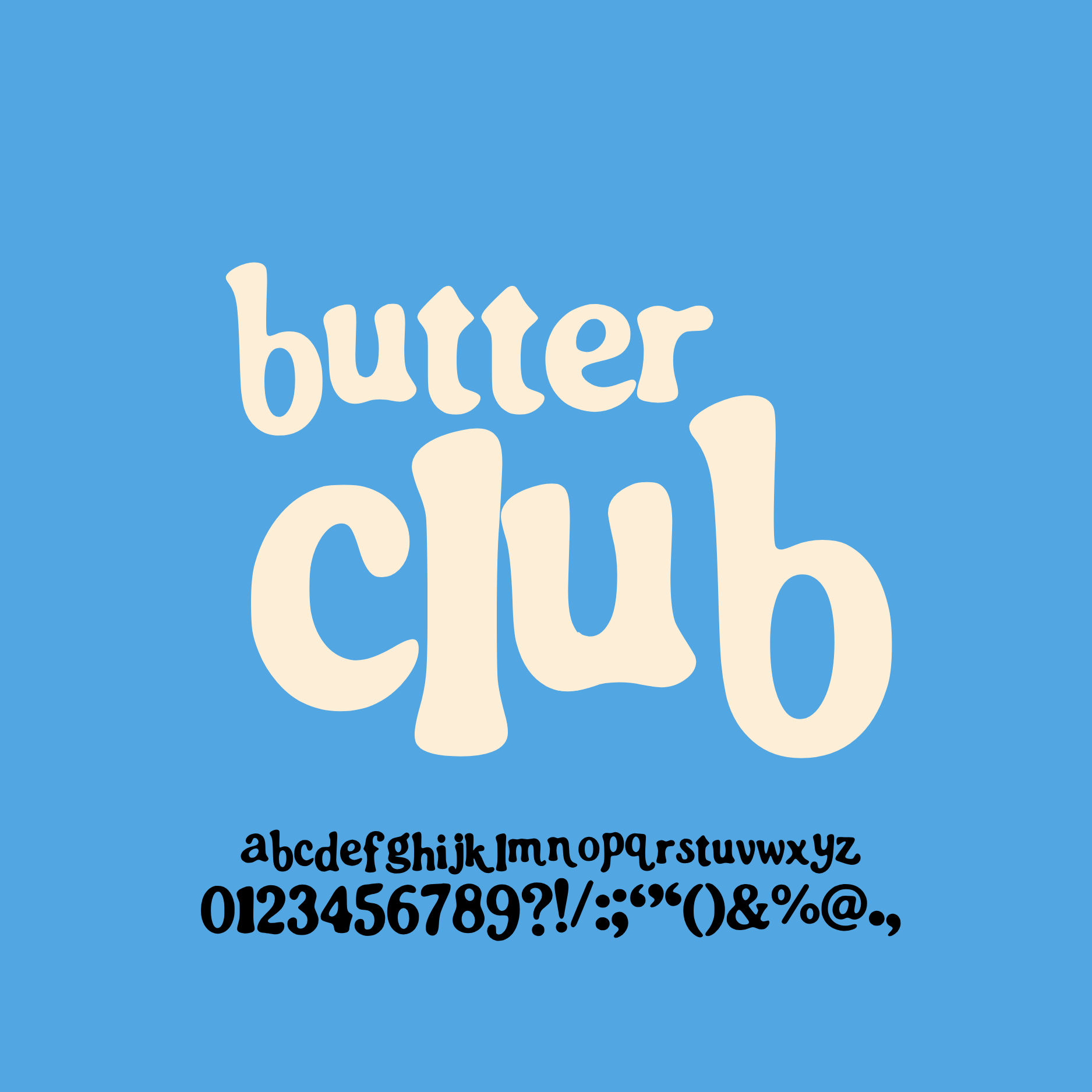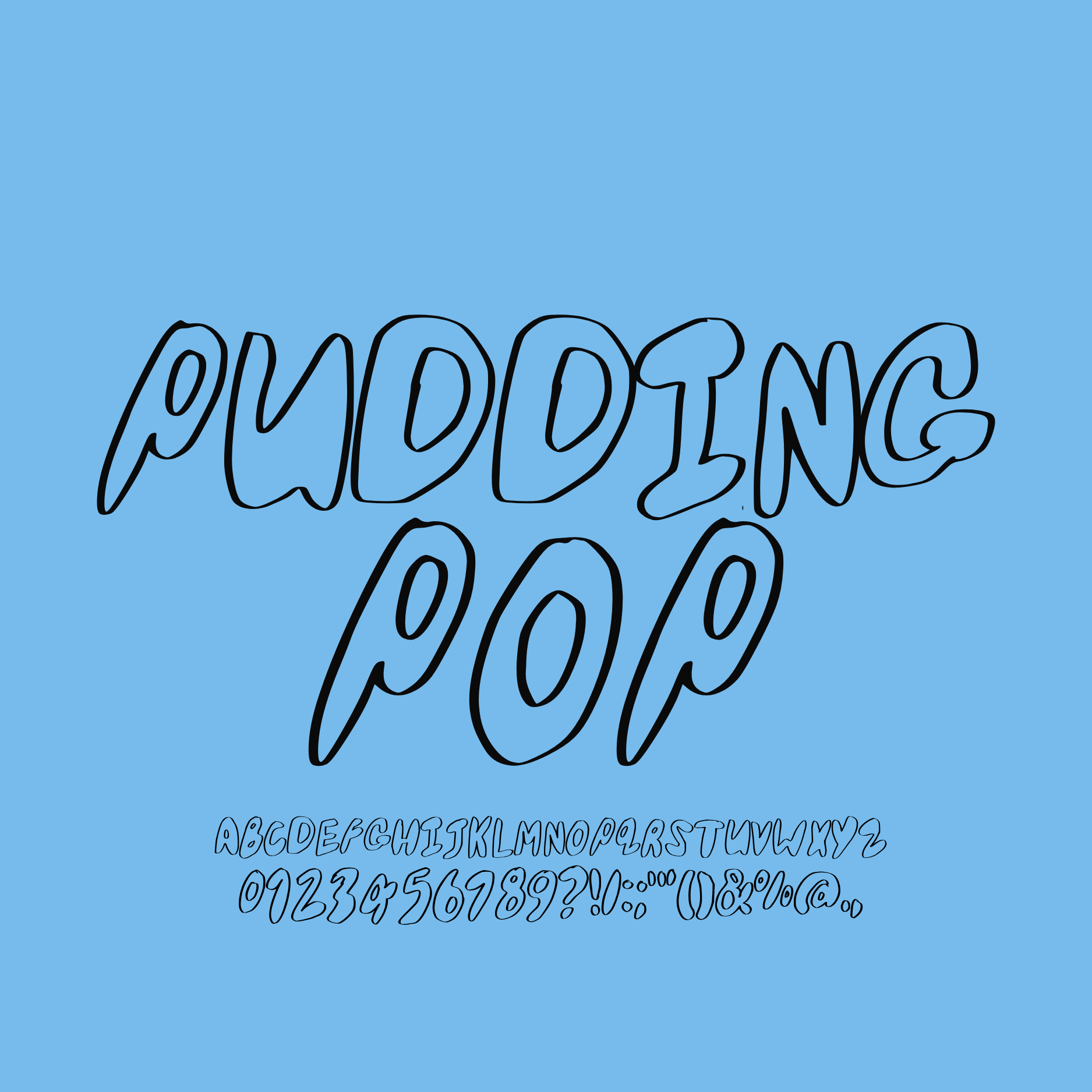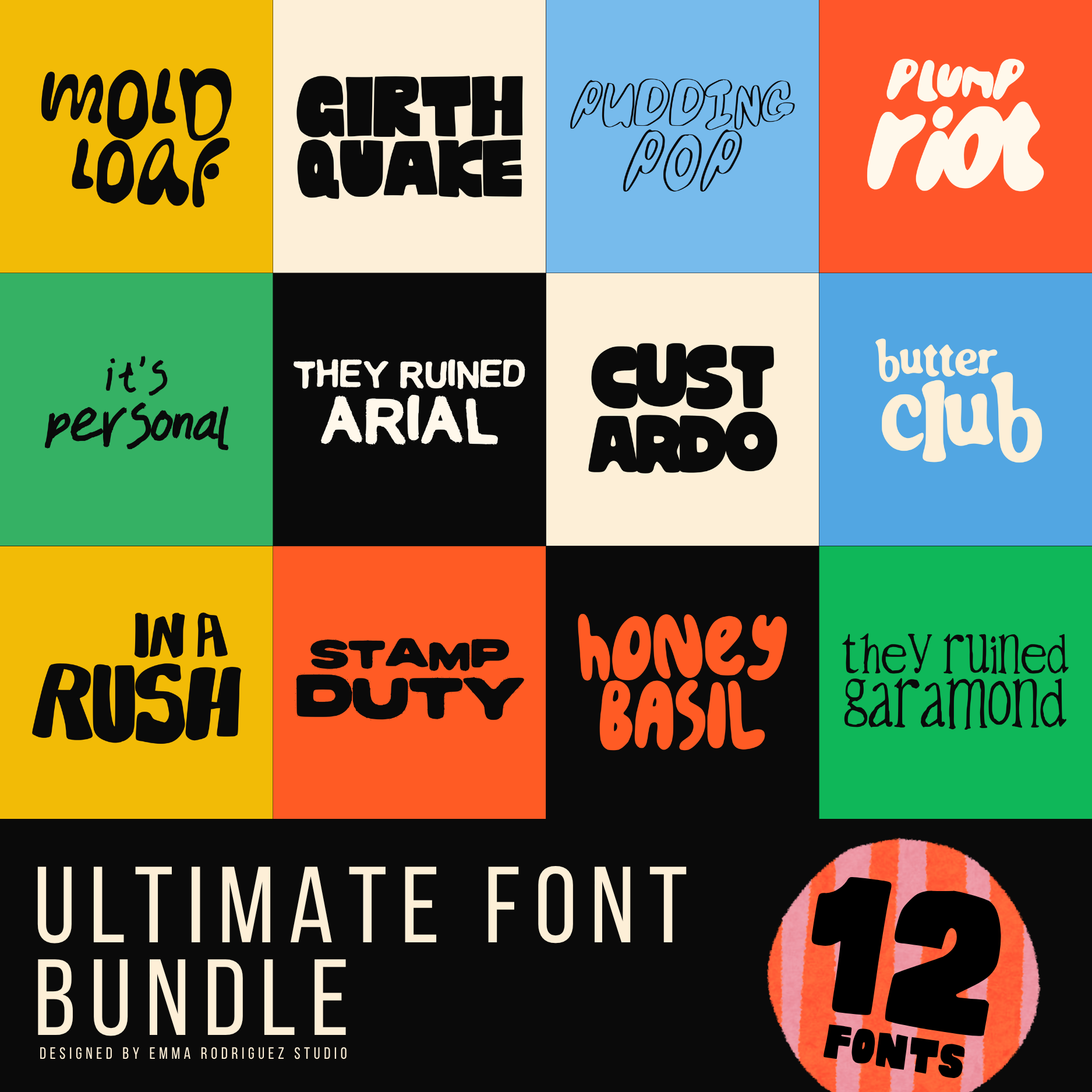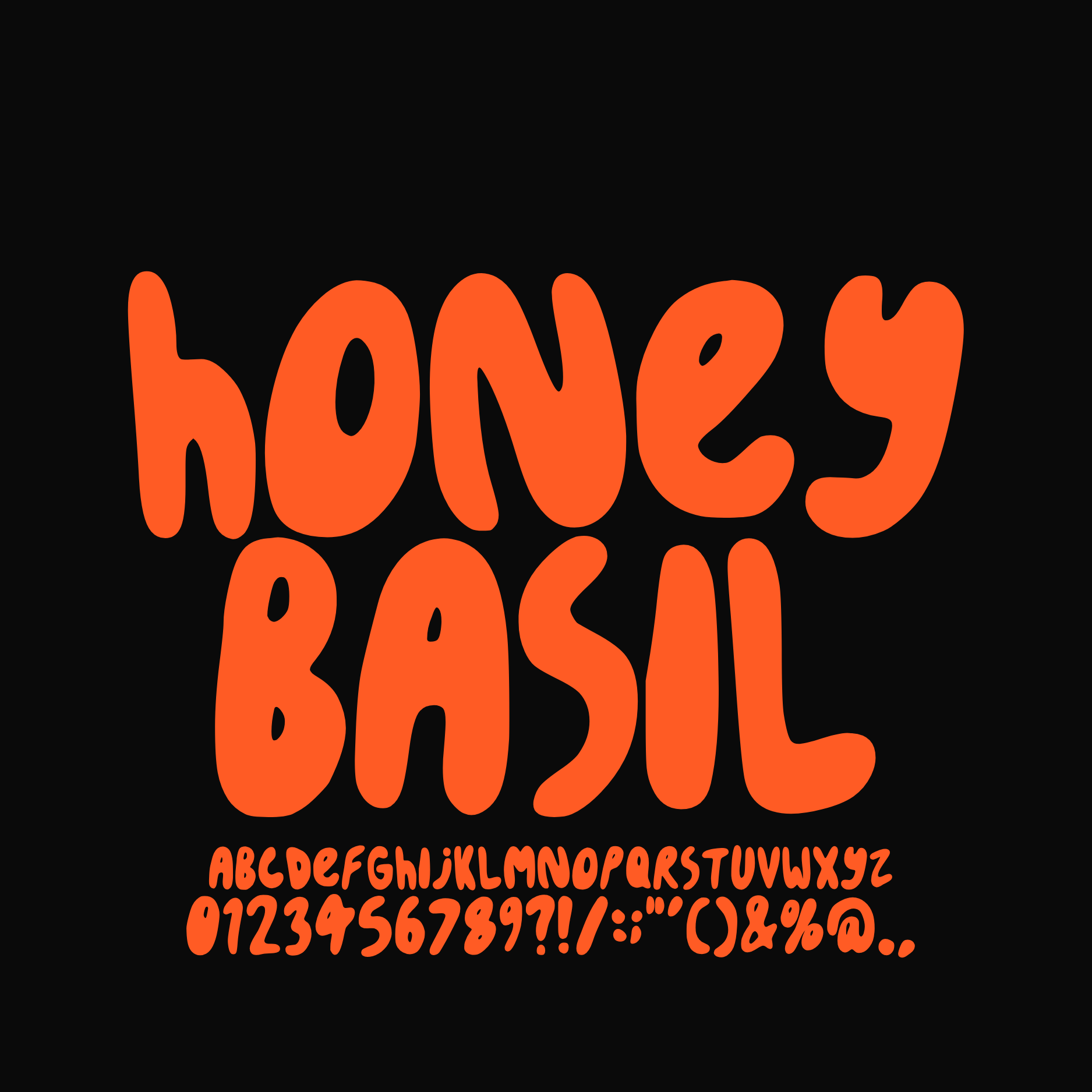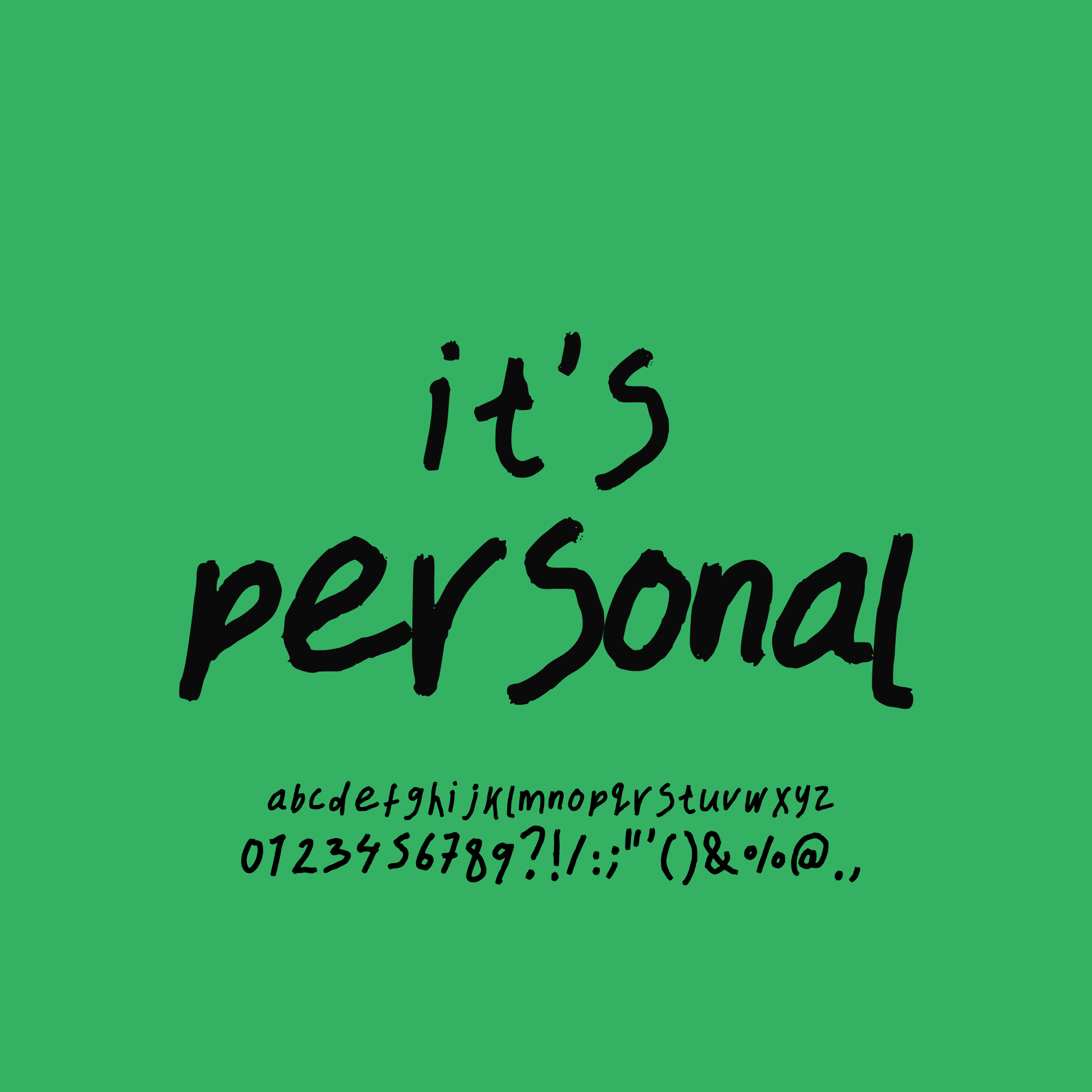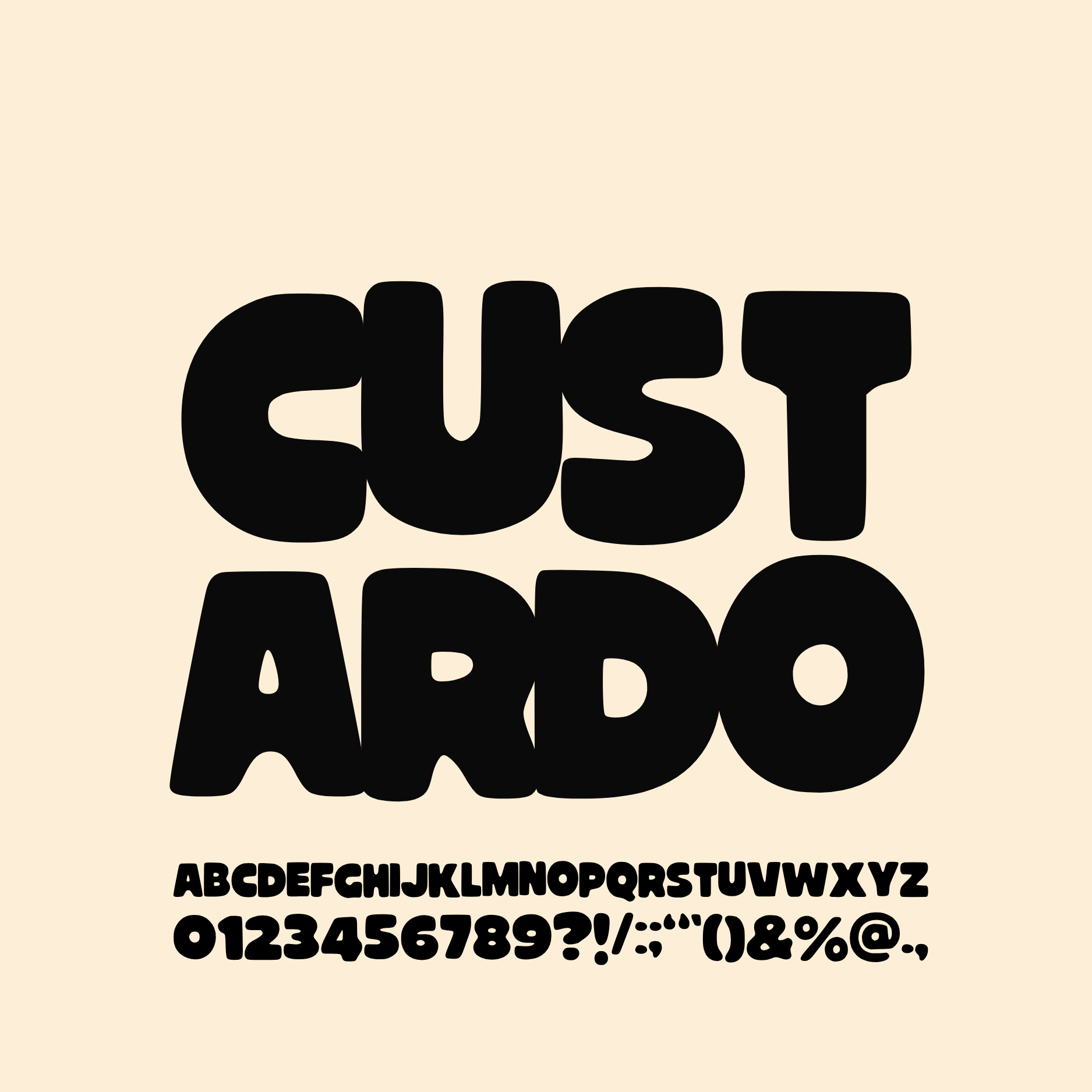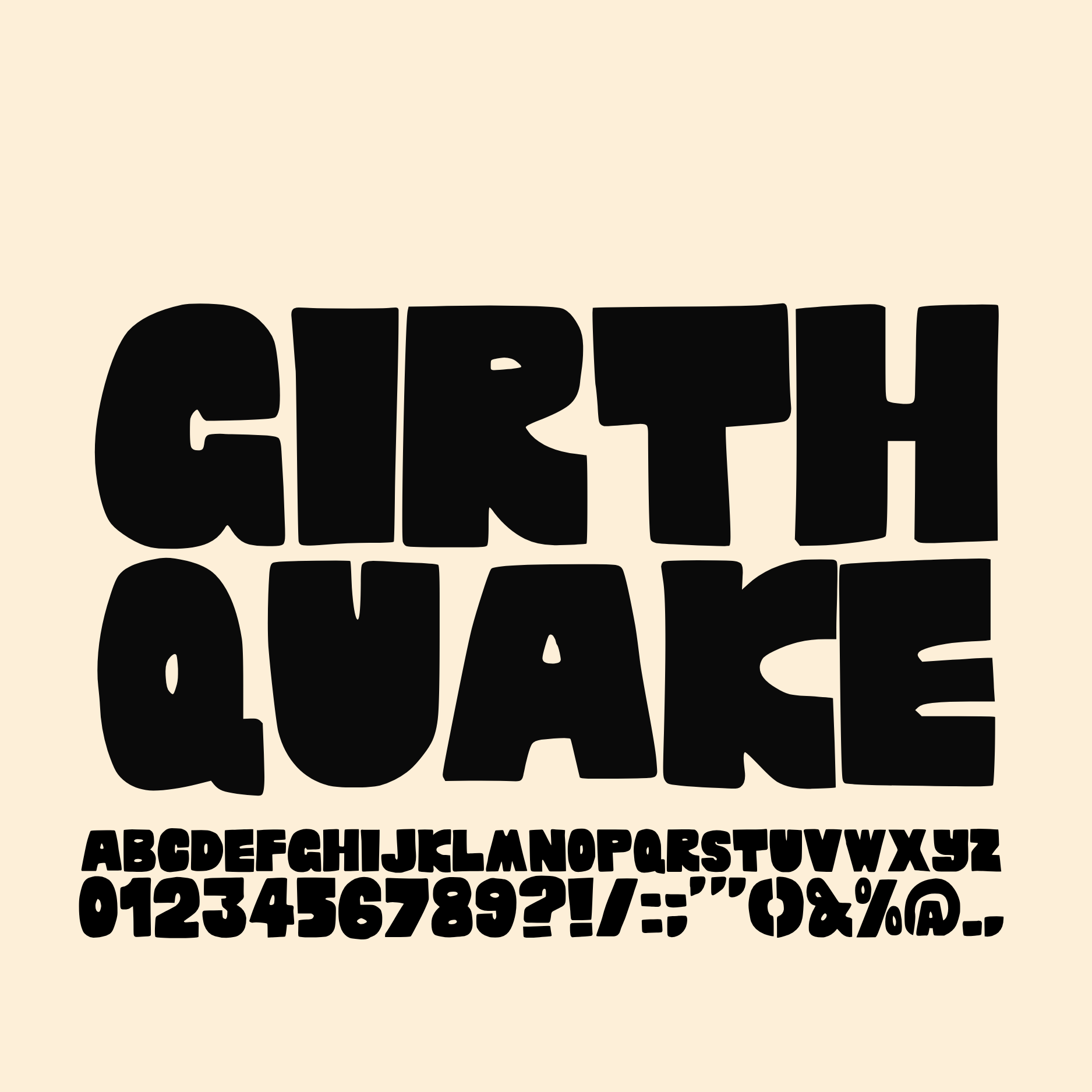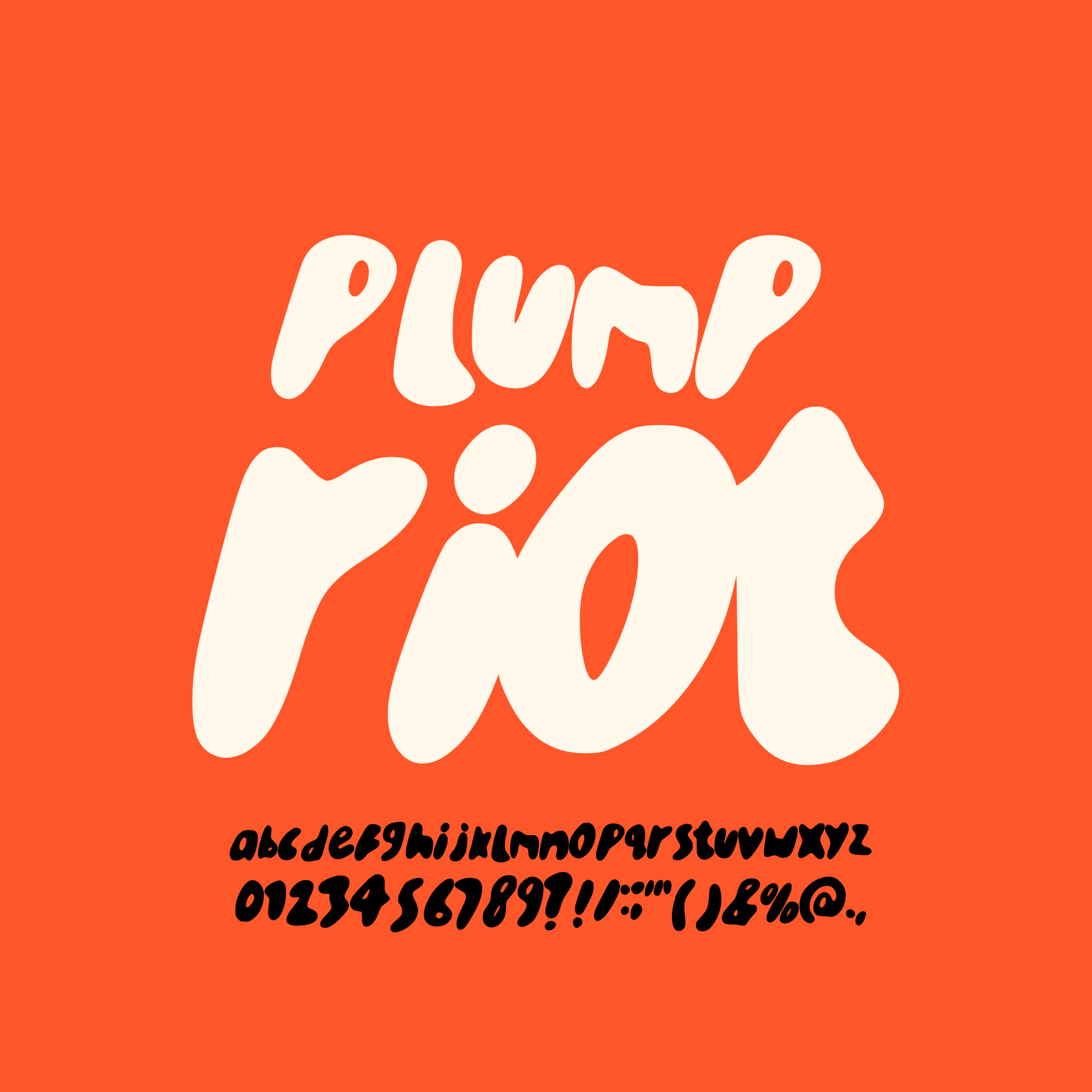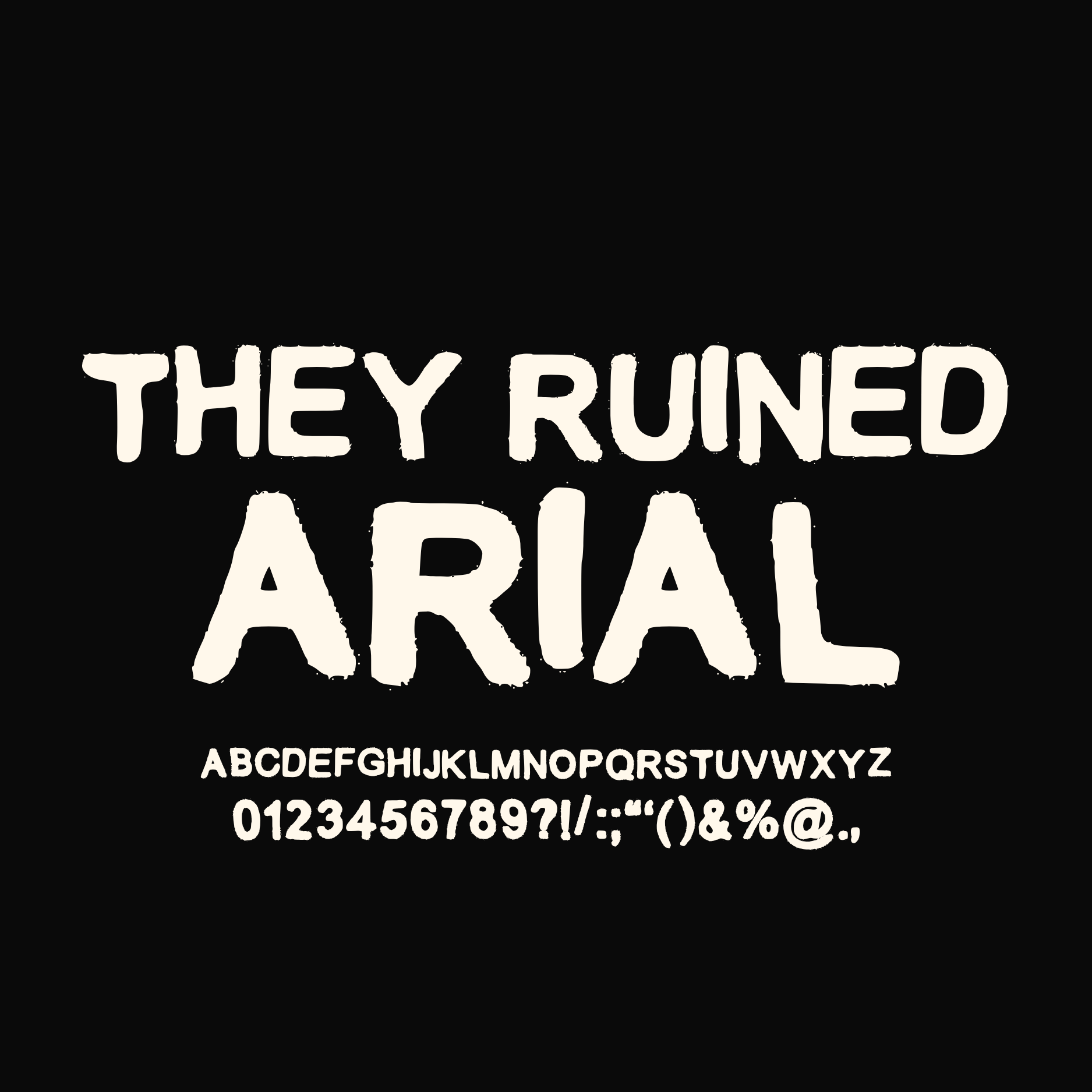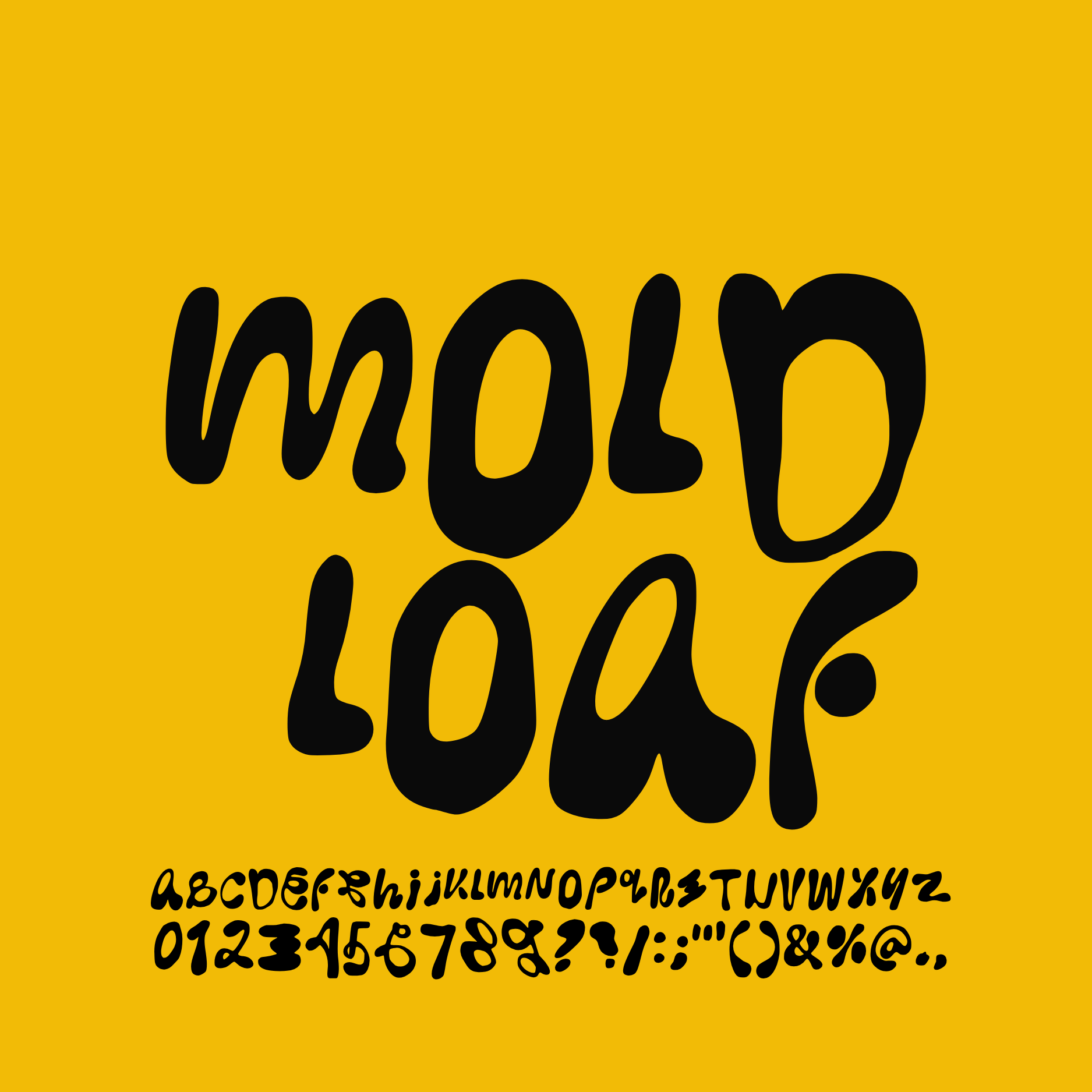
The Ultimate Creative Font Bundle, 12 Font Pack
The Ultimate Creative Font Bundle is a collection of 12 bold, expressive, personality packed fonts created for modern creatives who want typography with real character. Designed with current typography trends in mind, this bundle combines playful retro inspiration, chunky display lettering, quirky editorial forms, hand drawn imperfections, and bold statement typography that works across both digital and print design.
Inside the collection you’ll find fun and retro inspired display fonts, bubble lettering, quirky serif styles, playful sans serif fonts, hand drawn typography, and imperfect organic forms designed to add personality and impact to your creative work.
Fonts by Emma Rodriguez Studio are made to have personality. Expect naive shapes, wonky details, playful imperfections and type that doesn’t take itself too seriously. They’re not designed for clean, minimal branding. They’re for bold, quirky, maximalist projects that need something a little stranger, sillier and more expressive.